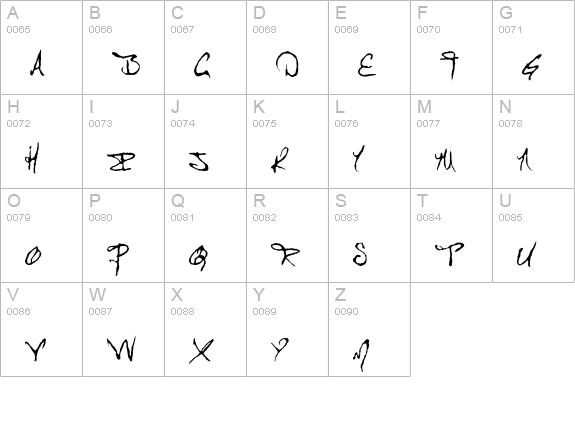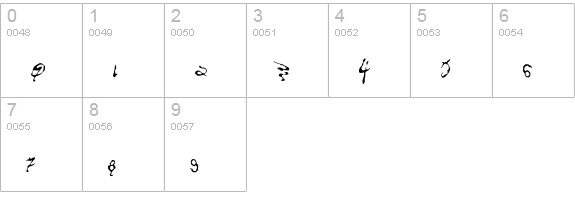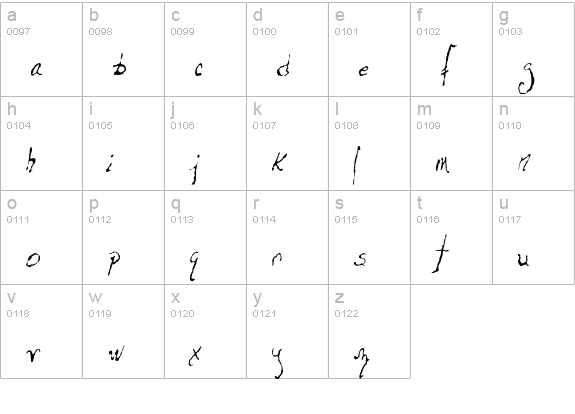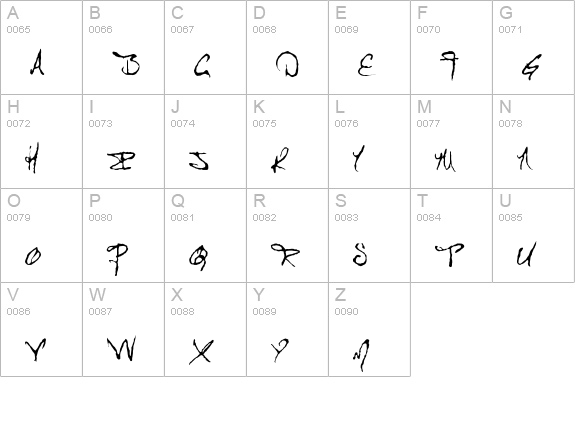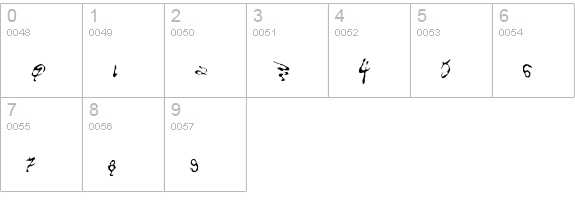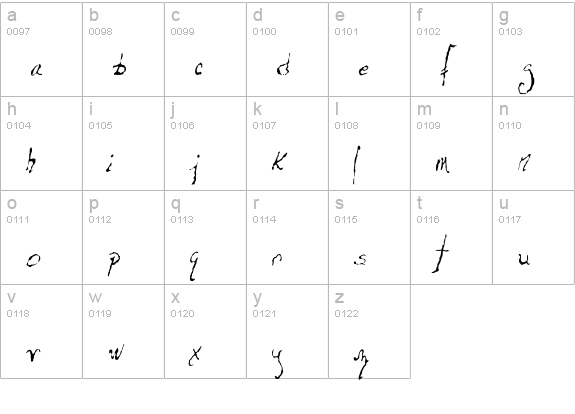
Dueodix Font Details
Dueodix is a modern and stylish font that is perfect for creating eye-catching designs. Its sleek and elegant lines make it suitable for a wide range of projects, from branding to editorial design. With a unique balance of sharp angles and smooth curves, Dueodix exudes sophistication and versatility. Whether you are designing a logo, a poster, or a website, this font is sure to make a bold statement. The best part is that Dueodix is completely free to download at FontsMarket.com. You can easily access this stunning font and use it in your projects without any cost. Don't miss out on the opportunity to enhance your designs with the beauty and elegance of Dueodix. Download it today and let your creativity shine!